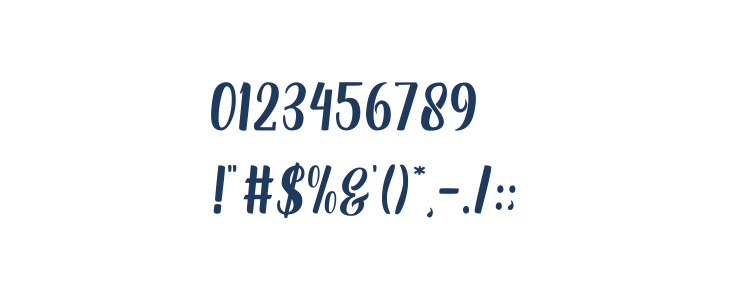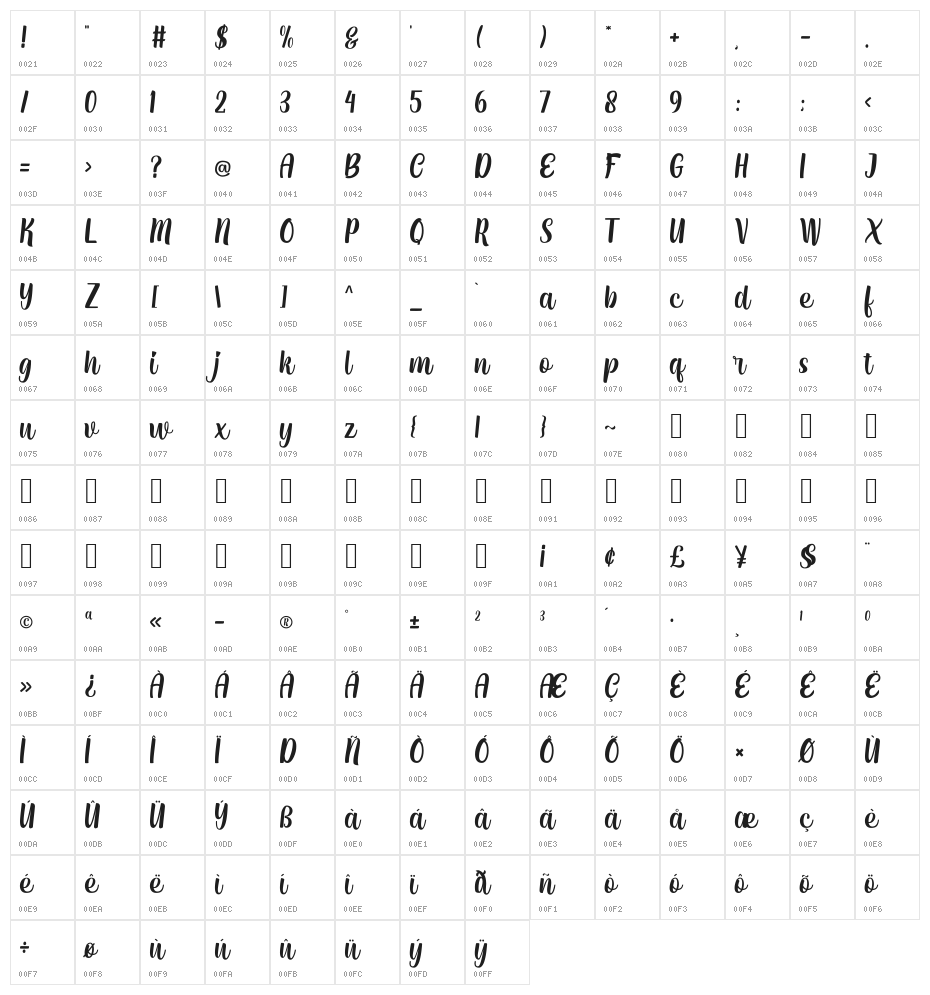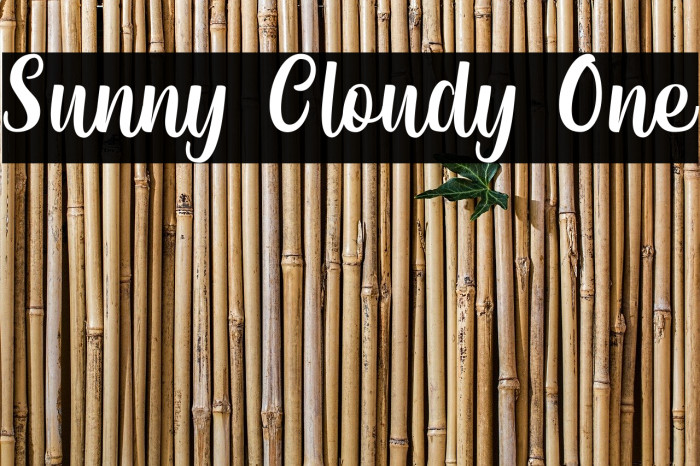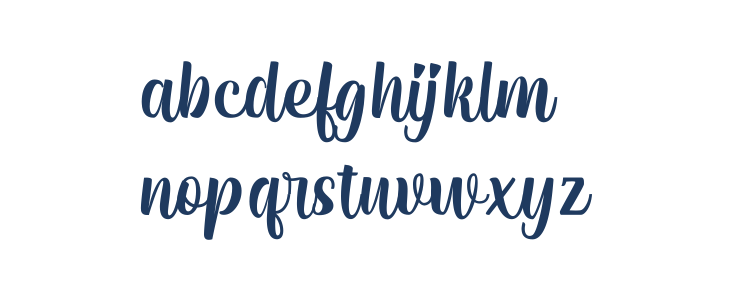
Sunny Cloudy One Font
Sunny Cloudy One Description
This font features a playful and dynamic script style with a bold presence. The characters are fluid and connected, giving a sense of movement and energy. The uppercase letters are tall and slightly narrow, while the lowercase letters maintain a consistent flow with elegant curves. The numbers are bold and easily legible, complementing the overall style. Special characters are designed with the same playful flair, making them suitable for creative and informal designs. The font's bold strokes and smooth curves make it stand out, ideal for projects that require a touch of personality and charm.
| Proposed Projects | Ideal for branding, invitations, greeting cards, and playful advertising campaigns. |